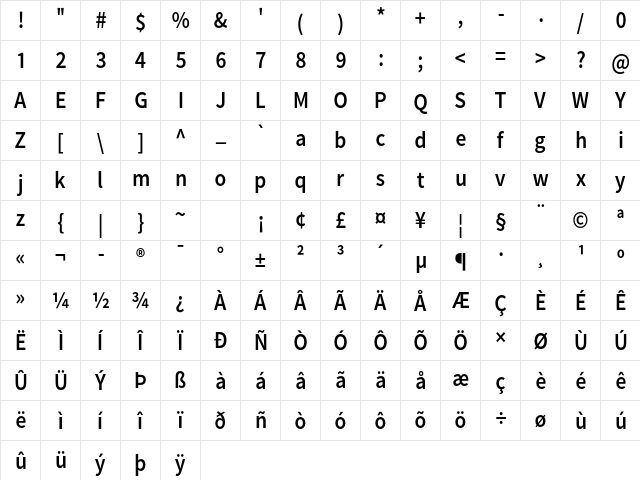
Falling Sky Condensed
| Designer | Paul D. Hunt |
Design Context for Falling Sky Typeface
Falling Sky takes a measured approach to typography — its balanced proportions and neutral character make it a reliable workhorse for both digital and print work. The condensed width makes it efficient for tight spaces without sacrificing legibility.
Pro Tip: Pair Falling Sky with a font of contrasting weight or personality to build a more expressive typographic hierarchy.